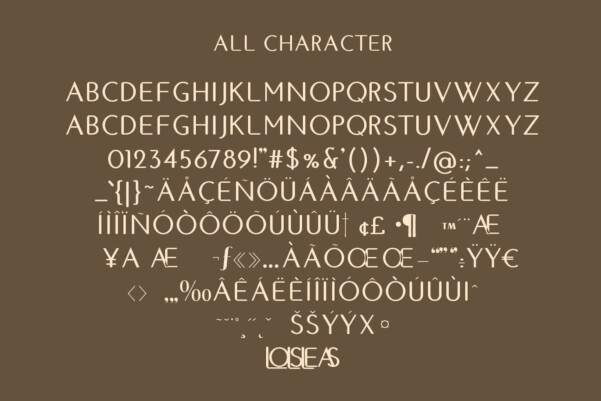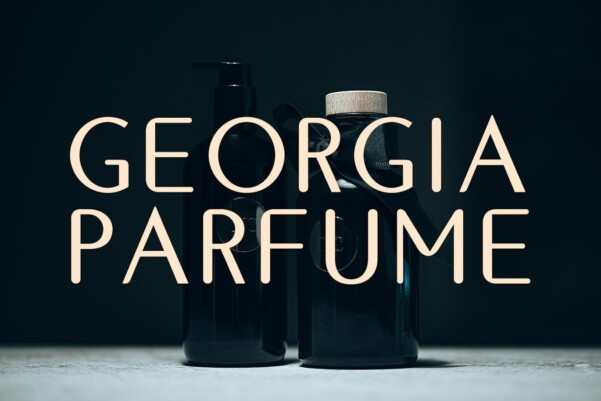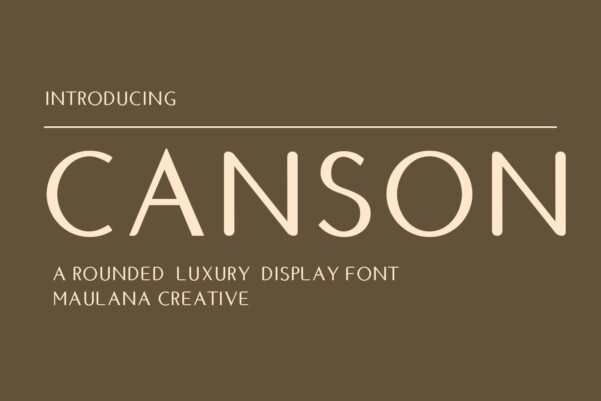
Canson Rounded Font
Canson Rounded Font is a rounded luxury without display font. With bold tall and sharp stroke, fun character with a bit of ligatures and alternates. To give you an extra creative work. Canson font multilingual support more than 100+ languages. This font is good for logo design, Social media, Movie Titles, Books Titles, a short text even a long text letter and good for your secondary text font with sans or serif. Make a stunning work with Canson font.